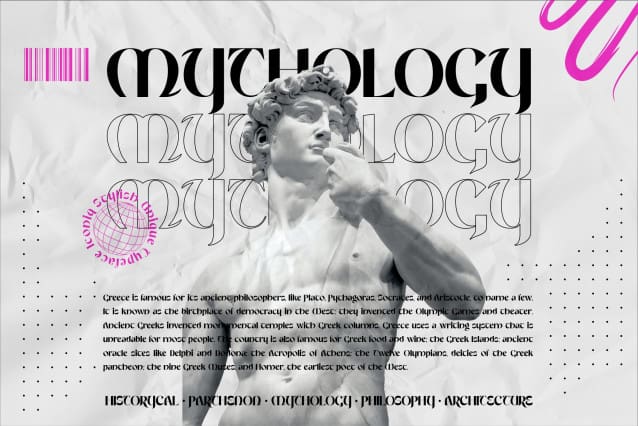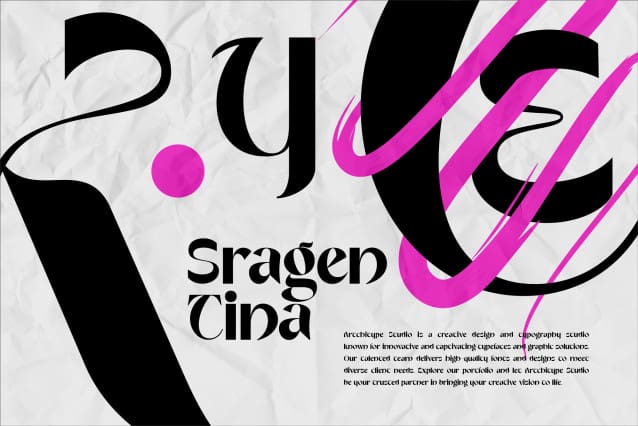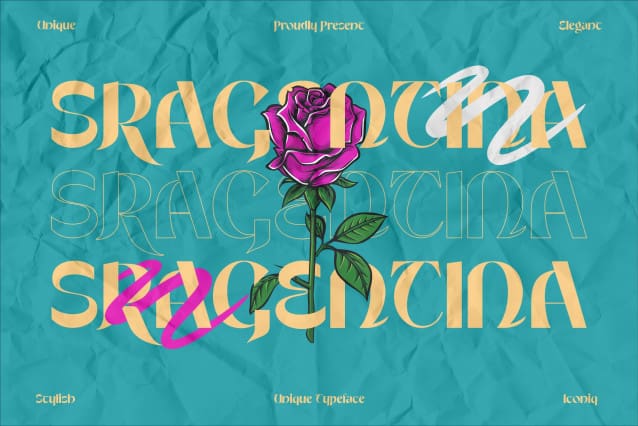
Sragentina Font
Sragentina Font – display sans serif font with 230+ characters. Includes uppercase, lowercase characters, multilingual. Sragentina Font is perfect for logos, social media posts, product packaging, product designs, and other projects.